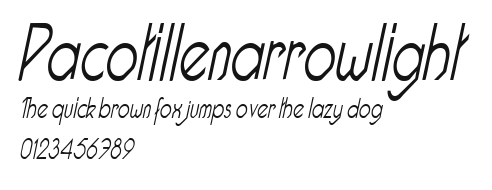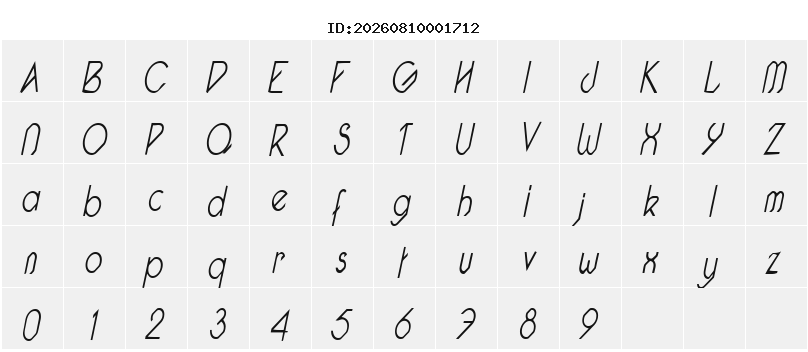
Pacotillenarrowlight Preview
• Font Name: Pacotillenarrowlight
• Font Style: ital
• Font ID: Fontographer 4.7 Pacotillenarrowlight ital
• Full Font Name: Pacotillenarrowlight ital
• Version: Fontographer 4.7 17/11/11 FG4M­0000002045
• PostScript Name: Pacotillenarrowlightital
About Pacotillenarrowlight.ttf
Pacotillenarrowlight.ttf is a modern, elegant sans-serif font designed for ultimate readability and visual harmony. Perfect for branding, headlines, web design, and print materials.